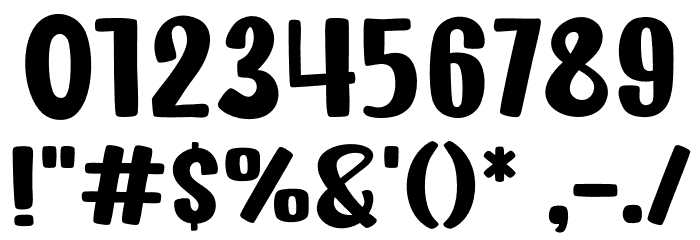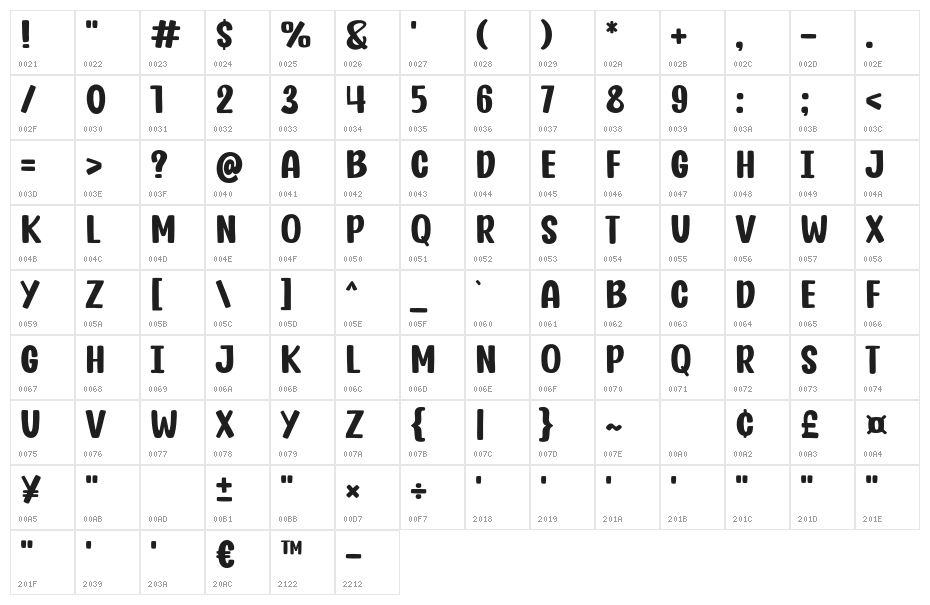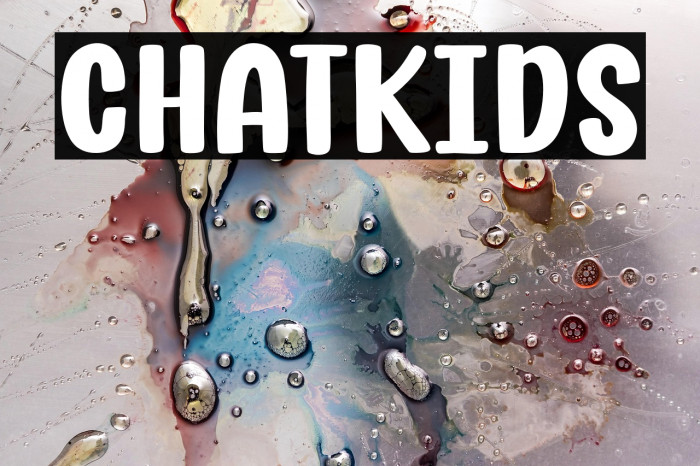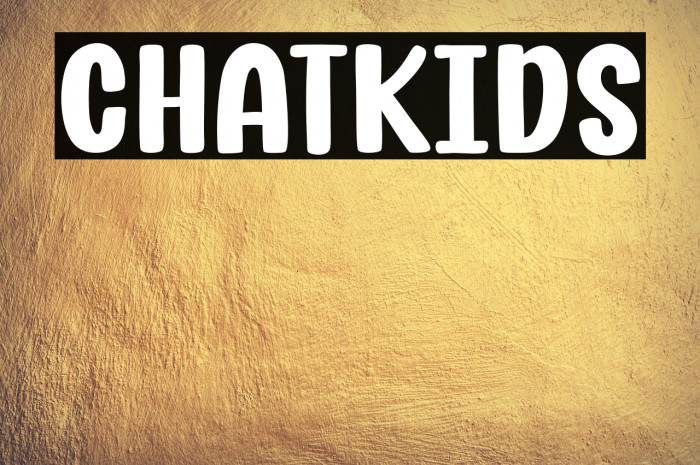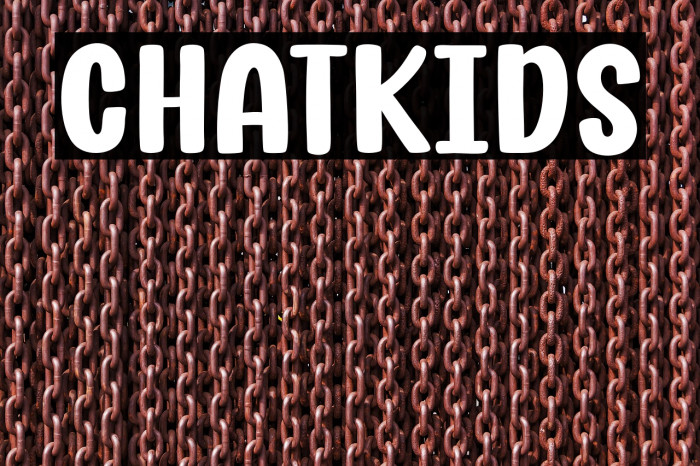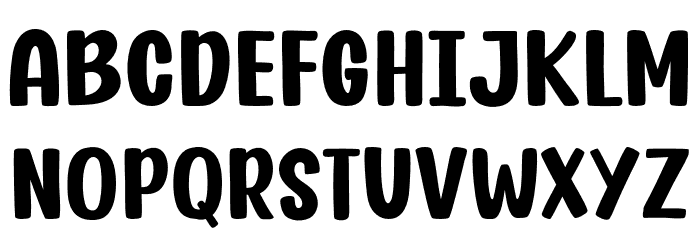
Chatkids Font
Chatkids Description
This playful and bold font features rounded edges and a friendly appearance, making it ideal for children's content. The characters are thick and slightly irregular, adding a hand-drawn feel that enhances its charm. The uppercase and lowercase letters maintain a consistent style, with a slight variation in height that adds to its whimsical nature. The numbers and special characters are equally bold, ensuring readability and maintaining the font's cohesive look. Its design is approachable and fun, perfect for engaging a young audience.
| Proposed Projects | Ideal for children's books, educational materials, playful branding, and toy packaging. |